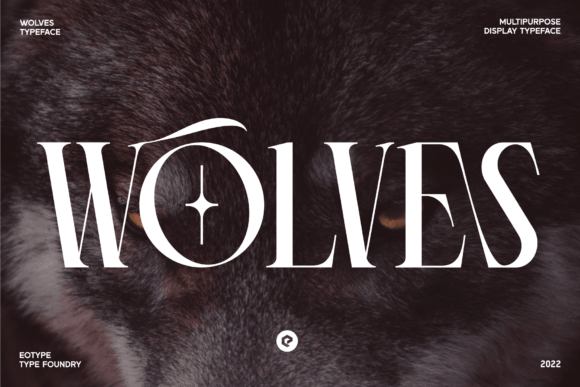
Introducing Wolves Font: An Exquisite Serif Display Font for Luxury and Sophistication
Elevate your creative projects to new heights with Wolves Font, a serif condensed display font that exudes opulence and grace. Crafted by the renowned Eotype foundry, this font is a masterpiece of digital typography, designed to make your words shine with elegance and impact.
With its sleek and refined curves, Wolves Font captures the essence of luxury and sophistication. Its condensed design adds a touch of exclusivity and allure, making it the perfect choice for brands and individuals seeking to convey a sense of prestige and distinction.
Step into a world of boundless creativity as you explore the possibilities of Wolves Font. Its versatility knows no bounds, lending itself effortlessly to a wide range of applications. From branding and poster displays to logo designs, magazine covers, product labels, clothing, and beyond, Wolves Font adds an air of sophistication and grandeur to every project it graces.
Unleash your artistic prowess and let Wolves Font guide you towards typographic excellence. Its PUA encoding ensures effortless access to a world of glyphs and ligatures, empowering you to craft intricate and visually stunning designs.